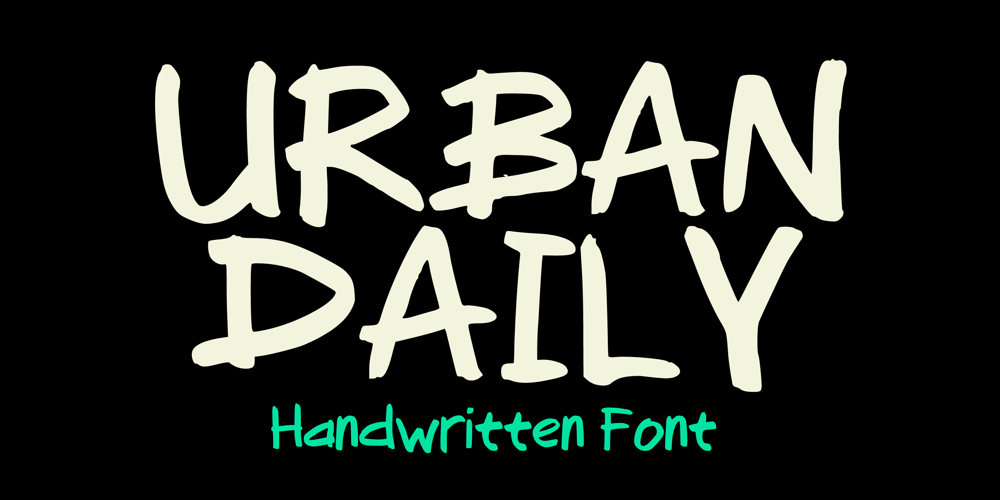
Urban Daily Font Family was designed by Gabriel Valentinus and published by Mvmet. Urban Daily contains 1 styles and family package options. Urban Daily is a playful daily handwritten font, inspired by graffiti-style tags. It will elevate a wide range of design projects to the highest level. You can use this font for many design ideas such as stickers, t-shirt designs, amazing logo designs, magazine or book covers, comics, cartoon drawings, and many more. This font will add a super cool touch to your designs!